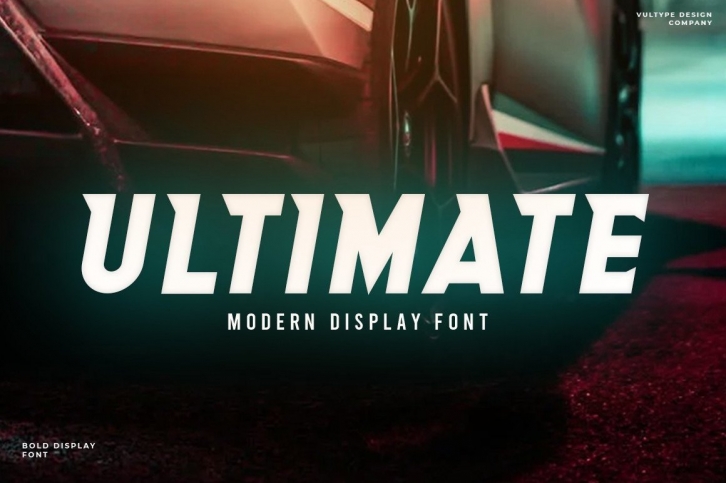
Ultimate is a display font that will make your designs looks futuristic and modern. You can use it for various projects such as blog posts, logos, branding, ads, invitations, greeting cards, planners, photo albums, decorations, and much more. Add it to any of your designs, and enjoy the results!